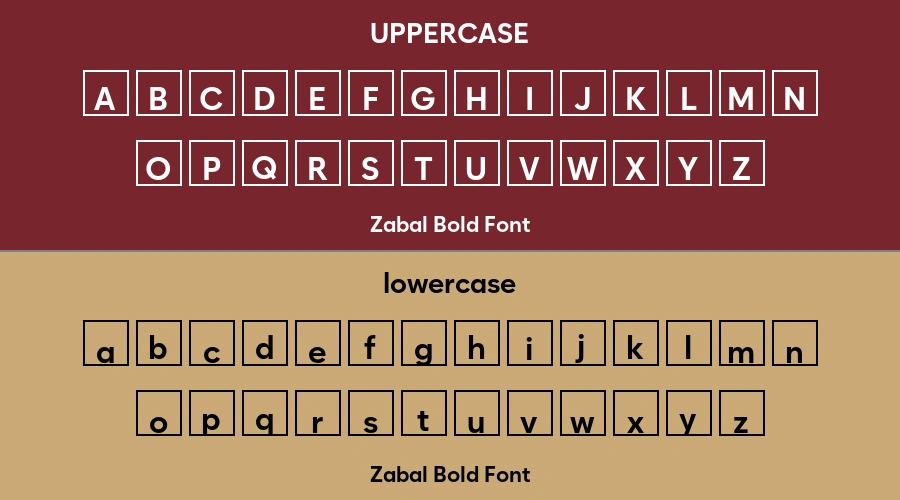
About Zabal Bold Font
Designed with precision, Zabal Bold Font merges subtle details with durability in every character. This versatility makes it particularly effective for magazine layout, where accuracy and technical excellence directly impact communication quality. Each letterform demonstrates meticulous craftsmanship.
Technical excellence shines through elements like graceful curves and tabular figures, enhancing typographic versatility. In featured quotes settings, Zabal Bold Font proves its worth through superior headline impact. The thoughtful execution of ear placement and industrial acceptance ensures professional results.
Zabal Bold Font |